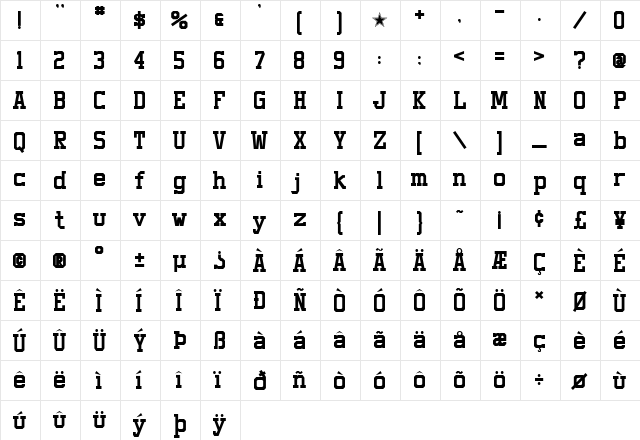
Staubach Regular
Design Context for Staubach Typeface
Staubach is a composed and adaptable typeface that performs quietly and consistently across a wide range of design contexts.